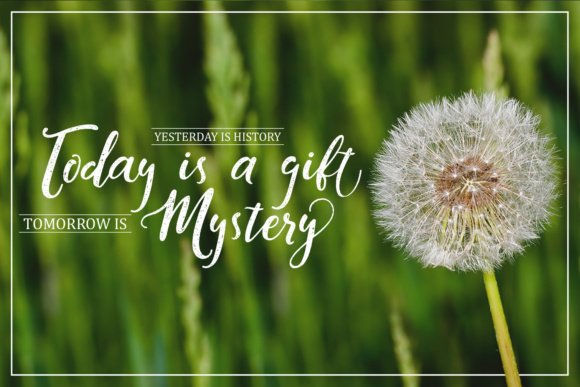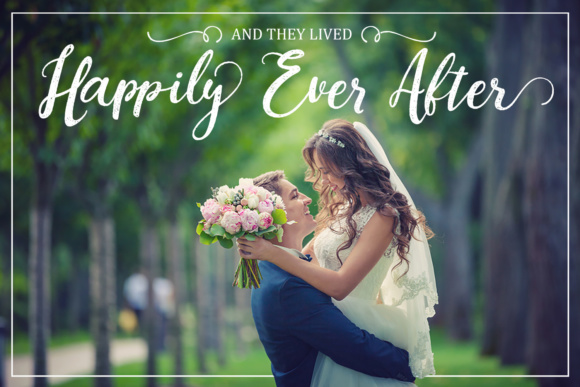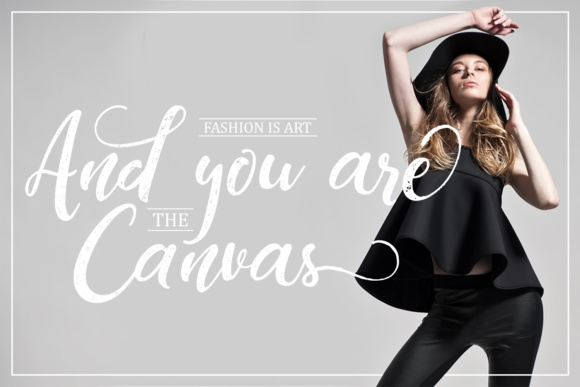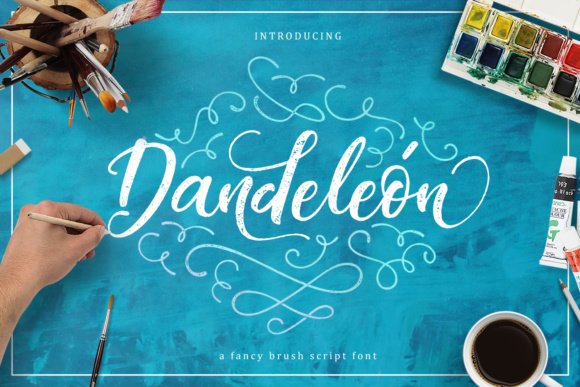
Introduction to Dandeleón Font
Dandeleón is a gorgeous script font, perfect for use in a wide range of designs.
This calligraphy, inky looking font is a great way to give your designs a handmade appeal and is easy to use in projects that necessitate a hand-lettered vibe .
Dandeleón Font offers exceptional quality and versatility, making it a valuable addition to your design toolkit. Whether you’re creating for personal projects or commercial use, Dandeleón Font delivers professional results.